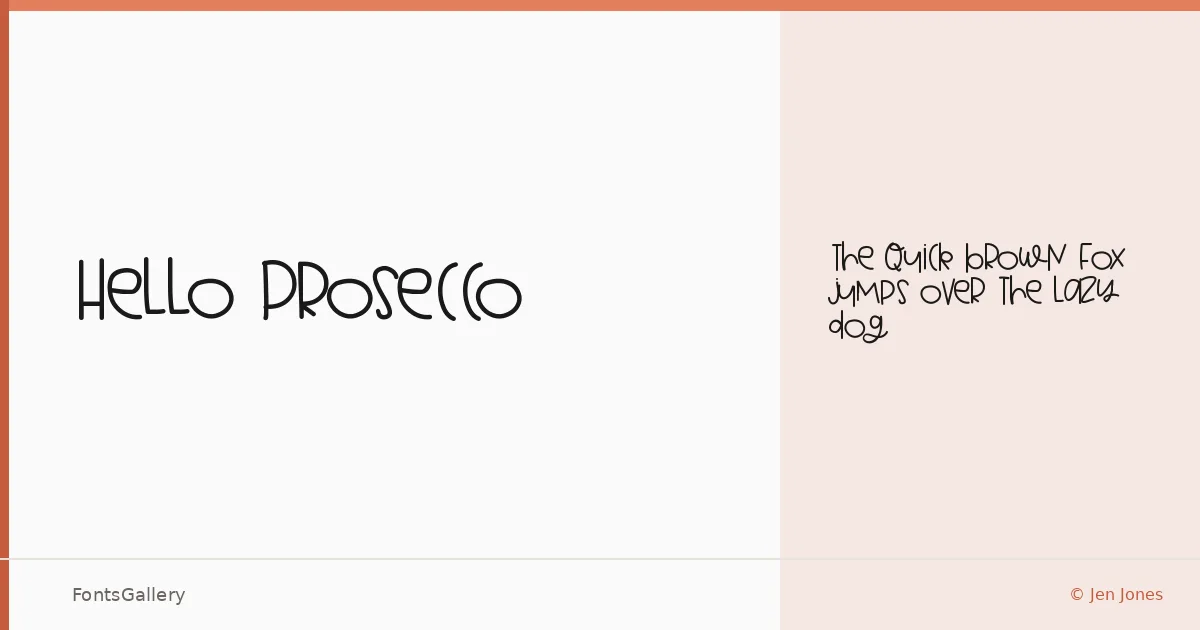
About Hello Prosecco Font
There is a lightness to this script — a loose, celebratory energy in the letterforms that feels less like careful calligraphy and more like handwriting caught in a good mood. Jen Jones designed the family as a single Medium weight, delivered in TTF format, with strokes that drift between elegant restraint and something genuinely playful.
As a handwritten script, it sits at an interesting intersection of modern whimsy and occasion-ready elegance — the kind of face that reads as effortless rather than overwrought. The Medium cut is the full story here, so its expressiveness carries all the weight, and the Latin character set keeps it focused and well-hinted for the contexts where it performs best. The forms have enough rhythm to hold across a headline or a short flourish without losing their informal charm.
It earns its keep on wedding suites, invitation cards, and greeting cards where a personal touch matters, and it translates just as naturally into branding work and social media graphics that need warmth without sentimentality. When you need a contrasting body or secondary face, it pairs well with the clean geometry of Helvetica or Abrade, the editorial softness of Canela or Anglecia Pro, and the structured contemporary feel of ABC Arizona.